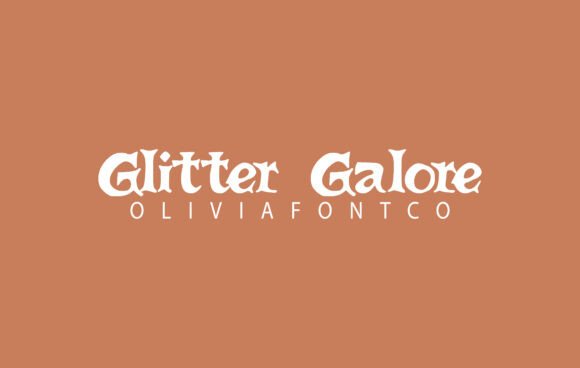
Glitter Galore Font: Elevate Your Designs with a Touch of Romance
Are you looking for a font that can add a dash of romance and whimsy to your designs? Look no further than the Glitter Galore font, an authentic handwritten font that is sure to capture your audience’s attention. In this article, we’ll dive into the features and benefits of the Glitter Galore font, and explore how it can be used to take your creative ideas to the next level.
What is Glitter Galore Font?
Glitter Galore font is a beautifully crafted handwritten font that exudes a sense of romance and sophistication. Designed to be both legible and visually appealing, this font is perfect for a wide range of design applications, from magazine headlines and social media graphics to branding, wedding invitations, and more.
Key Features of Glitter Galore Font
- Authentic Handwritten Style: Glitter Galore font boasts an authentic handwritten style that adds a personal touch to your designs.
- Romantic and Whimsical: This font is perfect for designs that require a touch of romance and whimsy, making it ideal for wedding invitations, Valentine’s Day cards, and more.
- Highly Legible: Despite its ornate appearance, Glitter Galore font is highly legible, making it suitable for use as both title and body text.
- Versatile: This font can be used for a wide range of design applications, from print to digital media.
Uses of Glitter Galore Font
Glitter Galore font is an incredibly versatile font that can be used for a variety of design projects. Here are some ideas to get you started:
Design Applications
- Magazine Headlines: Add a touch of glamour to your magazine headlines with the Glitter Galore font.
- Social Media Graphics: Create eye-catching social media graphics that stand out from the crowd with this beautiful font.
- Branding: Use Glitter Galore font to create a unique and memorable brand identity for your business.
- Wedding Invitations: Add a touch of romance and whimsy to your wedding invitations with this beautiful font.
- Cards and Stationery: Create beautiful cards and stationery that are sure to impress with Glitter Galore font.
Why Choose Glitter Galore Font?
With so many fonts available, why choose Glitter Galore font? Here are just a few reasons why this font stands out from the rest:
Reasons to Choose Glitter Galore Font
- Unique and Authentic: Glitter Galore font is a unique and authentic handwritten font that will set your designs apart from the rest.
- Easily Readable: Despite its ornate appearance, Glitter Galore font is highly legible, making it perfect for use as both title and body text.
- Time-Saving: With Glitter Galore font, you can create beautiful designs in a fraction of the time it would take to create them from scratch.
Tips for Using Glitter Galore Font
Here are a few tips for getting the most out of Glitter Galore font:
Tips and Tricks
- Use it Sparingly: While Glitter Galore font is beautiful, it can be overwhelming if used too much. Use it sparingly to add a touch of elegance to your designs.
- Pair it with Other Fonts: Experiment with pairing Glitter Galore font with other fonts to create a unique and visually appealing design.
- Adjust the Size and Color: Don’t be afraid to experiment with different sizes and colors to find the perfect combination for your design.
In conclusion, Glitter Galore font is a beautiful and versatile handwritten font that is perfect for designers and businesses looking to add a touch of romance and whimsy to their designs. With its authentic style, high legibility, and ease of use, this font is sure to become a favorite in your design arsenal. So why wait? Download Glitter Galore font today and start creating stunning designs that will leave a lasting impression on your audience.